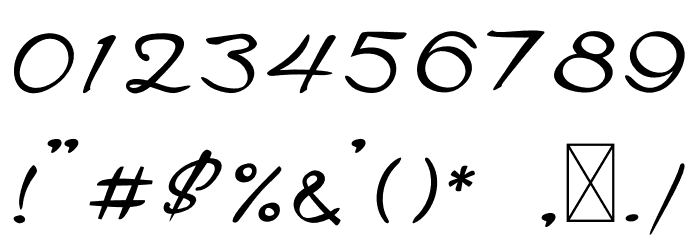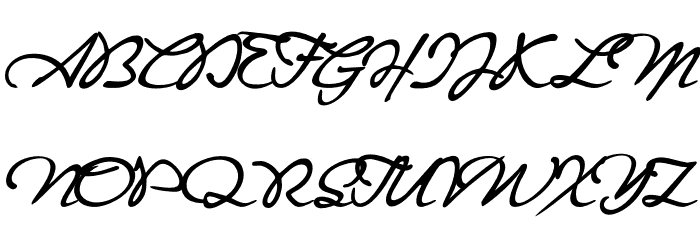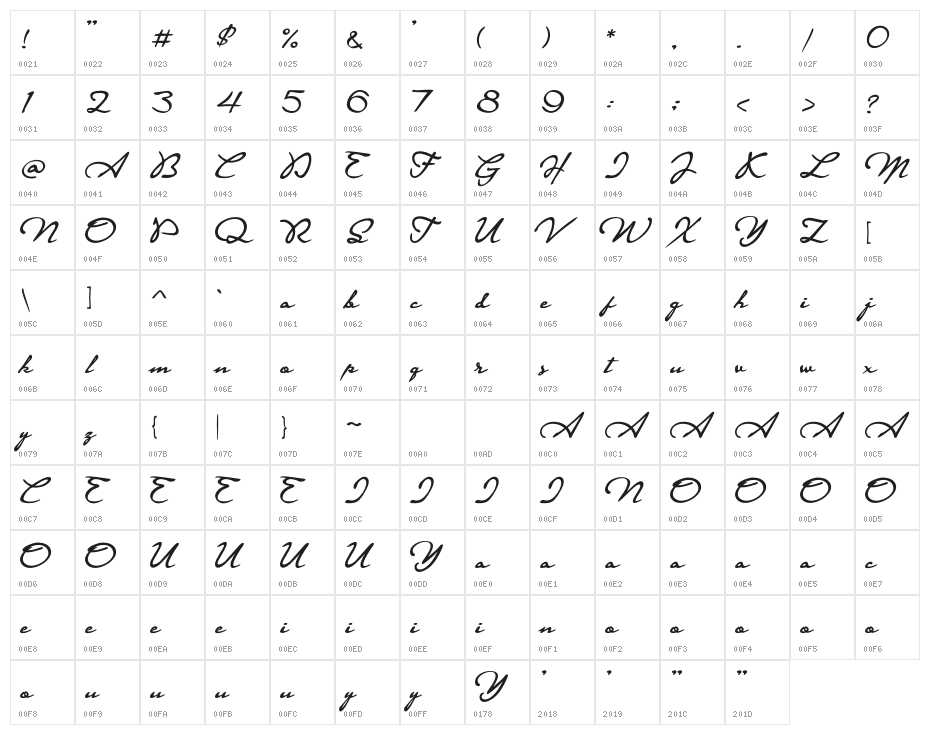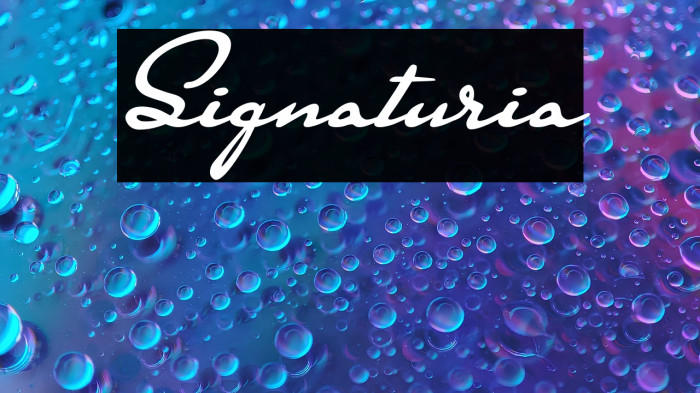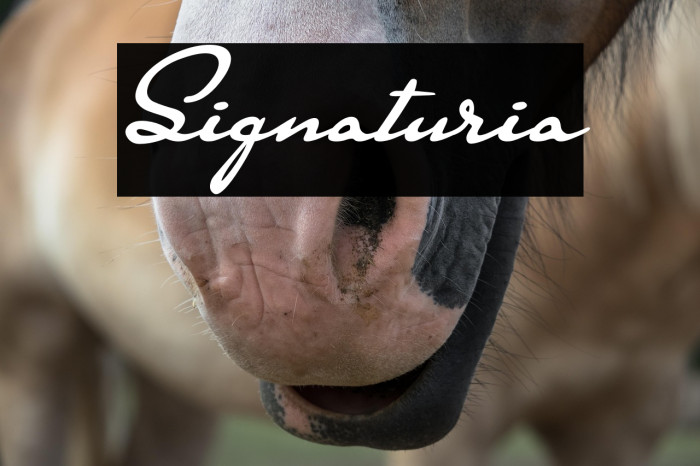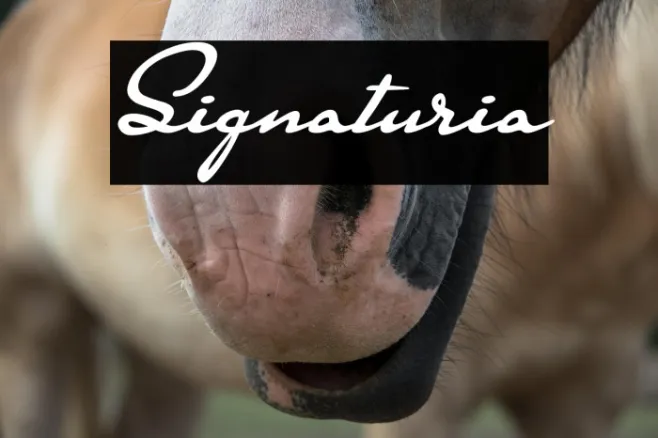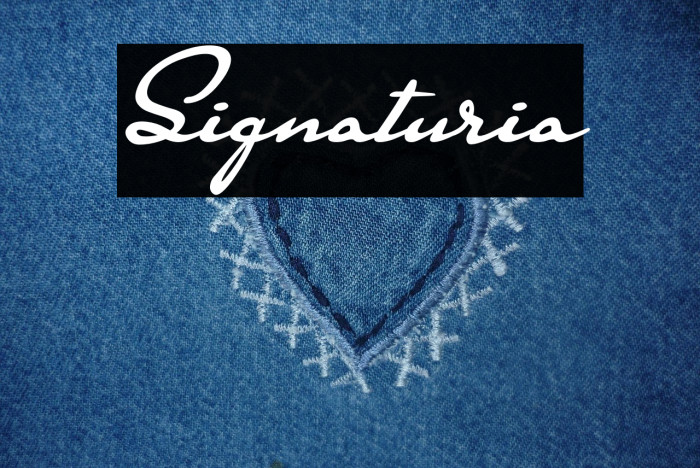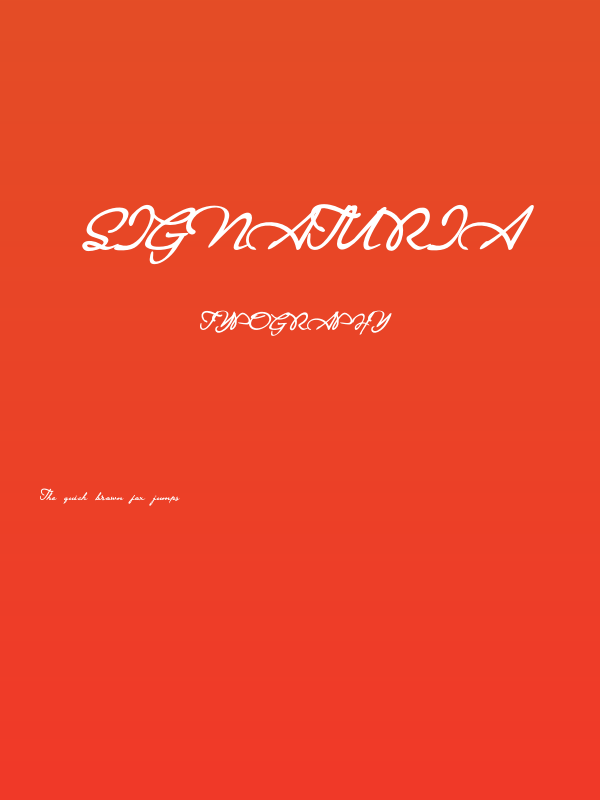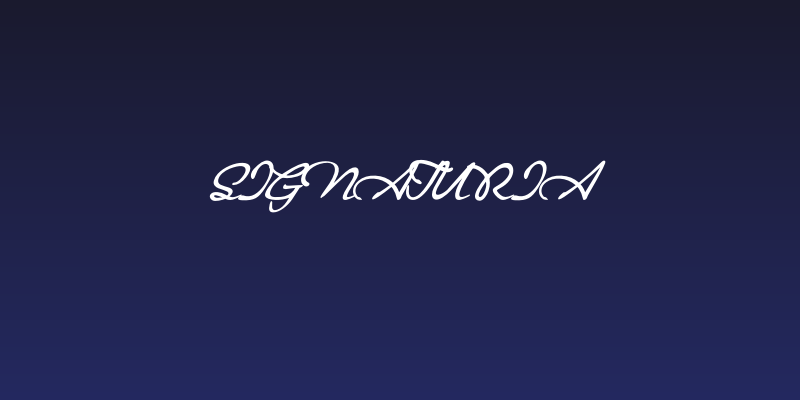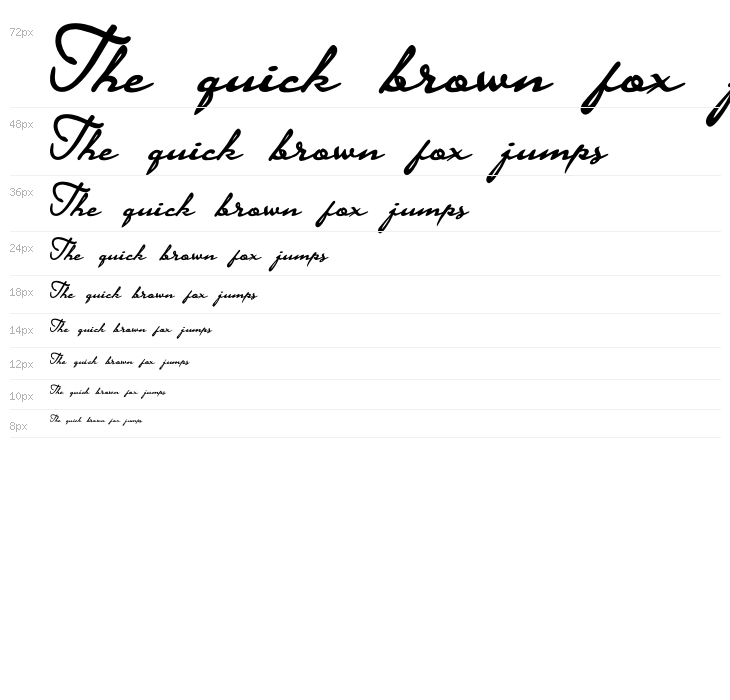
Signaturia Font
Signaturia Description
This elegant script font features fluid, connected strokes that emulate the look of classic handwriting. The uppercase letters are ornate, with sweeping curves and loops that give a sense of sophistication and grace. The lowercase letters maintain a consistent flow, enhancing readability while preserving the handwritten aesthetic. Numbers and special characters are designed with the same attention to detail, ensuring a cohesive appearance across all text. This font is ideal for projects that require a personal touch, such as invitations, greeting cards, and branding materials.
| Proposed Projects | Ideal for wedding invitations, personal branding, greeting cards, and elegant stationery. |